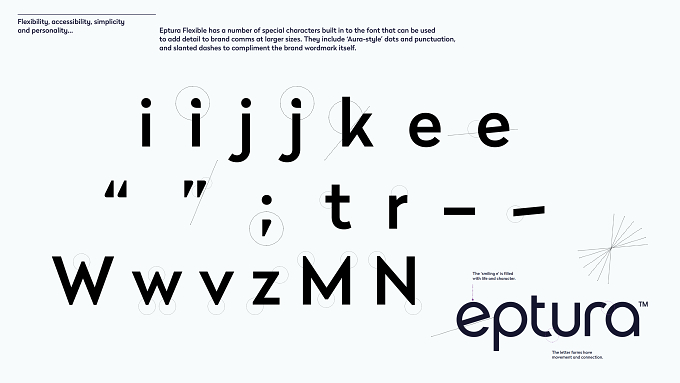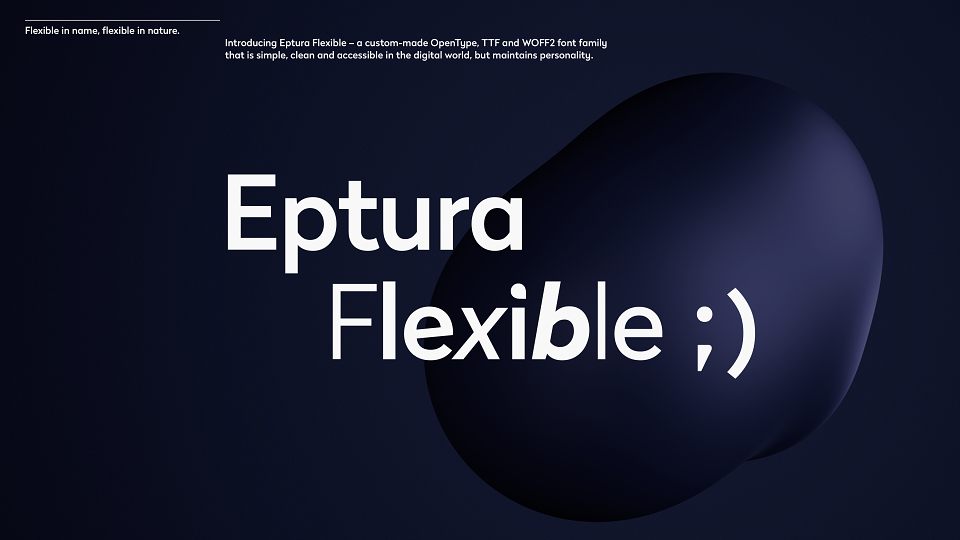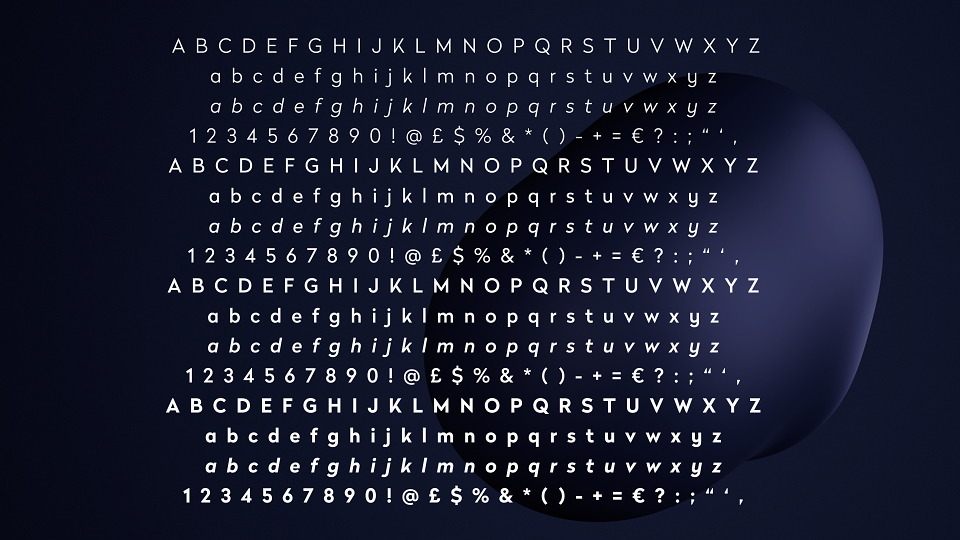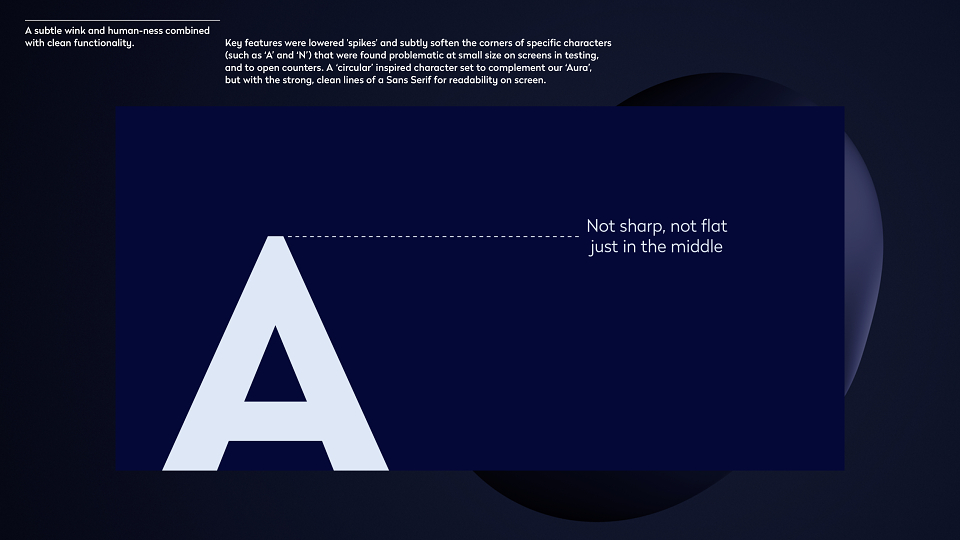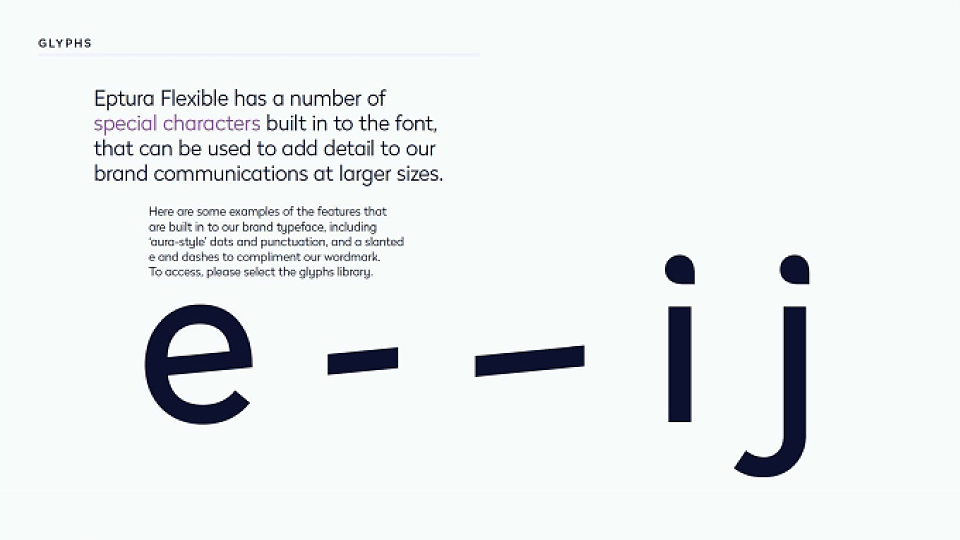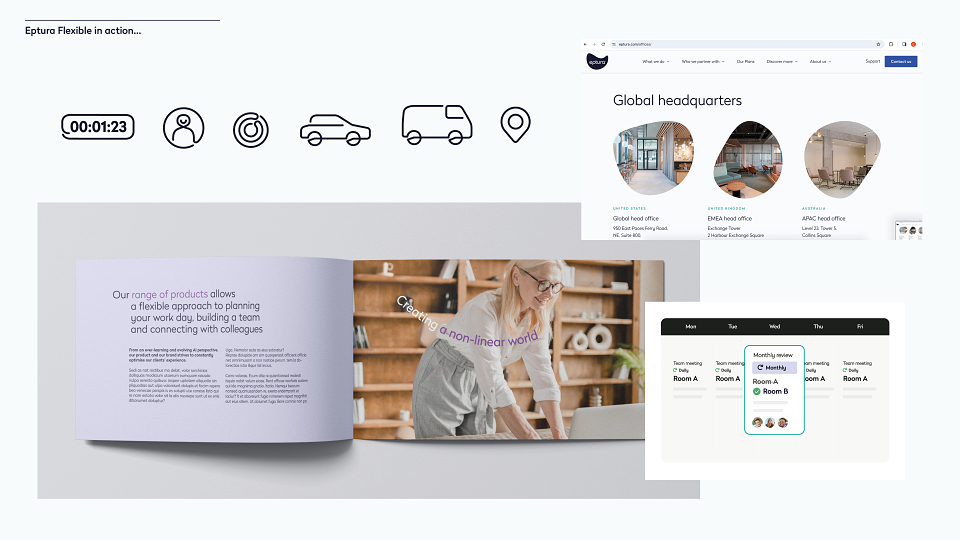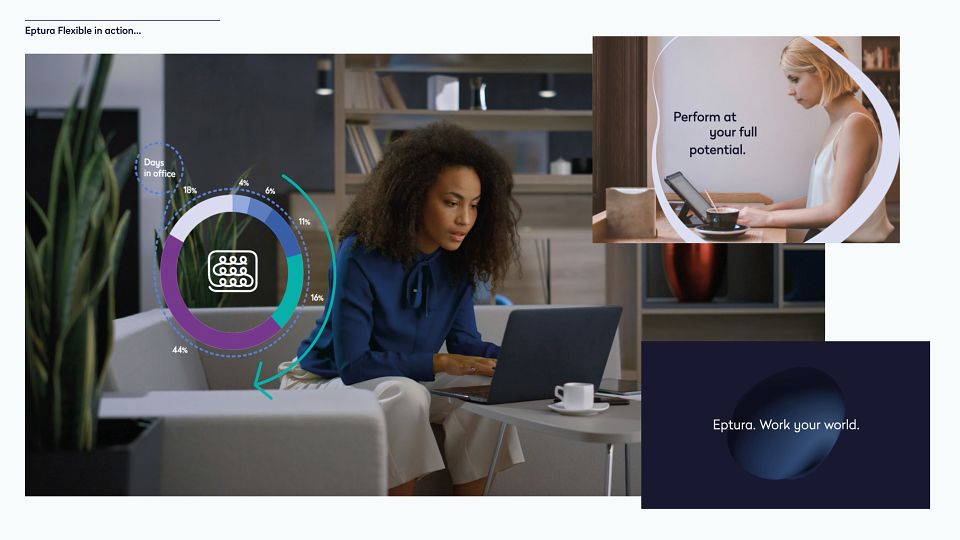
Condeco, iOffice and Space IQ merged to create a global work tech leader. With a mission to create a better future at work, a new brand was needed to bring this vision to life. We worked with the in-house digital and marketing teams to create a visual identity that stood out across every touch point, from web to coffee mug to event stand.
The world of work is changing and we created a brand as fluid as the future of work; a brand world breaking free from tradition both visually and tonally. The living heart of the brand is the Aura – a code-first graphic device that reacts and changes to its environment.
This is paired with a new commissioned font reflecting the logo; fluidity of space and environment; an emotive, accessible colour palette; human-centric photography; and assets designed to save energy and processing power, creating an eco-aware and inclusive brand world.
“By designing and delivering accessible solutions, Eptura aims to help break down the barriers that can prevent people from fully engaging in the workplace." During a design system audit, Eptura achieved 92% on Level Access’s accessibility health scoring criteria — a strong rank indicating they are “making a conscious effort to design and build with accessibility in mind.”
Flexibility, accessibility, simplicity and personality...
Introducing Eptura Flexible – a custom-made OpenType, TTF and WOFF2 font family that is simple, clean and accessible in the digital world, but maintains personality.
A bespoke font family that not only has longevity and options for large scale brand marketing, but, most importantly, works in the numerous digital products that Eptura offers worldwide, in multiple languages. A suite of faces that worked well when small on screen in apps, as well large-scale for advertising, events and display purposes. It was essential, as part of the brand philosophy, to create something that passed rigorous accessibility testing and had the flexibility of weights to perform a multitude of tasks. All within budget. But that didn't mean losing any personality.
A subtle wink and human-ness combined with clean functionality.
Key features to aid these considerations were to lower 'spikes' and subtly soften the corners of specific characters (such as ‘A’ and ‘N’) that were found problematic at small size on screens in testing, and to open counters. A ‘circular’ inspired character set to complement our ‘Aura’, but with the strong, clean lines of a Sans Serif for readability on screen.
Flexible in name, flexible in nature.
The primary brand font has:
• Four set weights and accompanying italics,
• Available for Worldwide use, including Cyrillic characters.
• In-built ‘up-weighting’ when non-designer users click on bold manually in apps such as Word (maintaining visual consistency even in those circumstances),
• A set of alternative glyphs and ligatures designed to give the marketing team freedom, and fun, in their layouts.
Eptura Flexible has a number of special characters built in to the font that can be used to add detail to brand comms at larger sizes. They include ‘Aura-style’ dots and punctuation, and slanted dashes to compliment the brand wordmark itself.
A set of specifications were designed to allow for consistent application of the brand typographic style across all website pages and across all of Eptura’s app products.
The typographic styling is designed to be readable, but energetic and airy, through the smart use of staggered grids, AAA-tested colourways and typeface weights.
Eptura Flexible: An accessible bespoke brand typeface